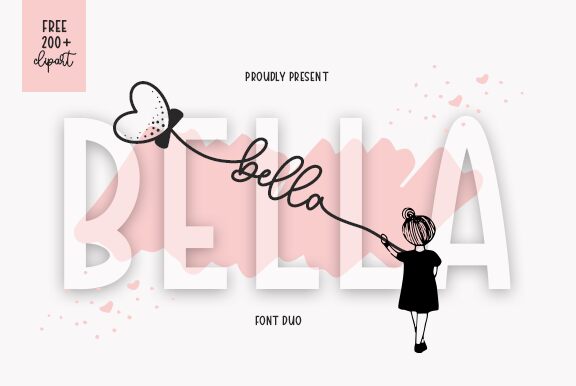
Introducing Bella – a light handwritten font designed by Nopianti. Its naturally flowing lettering makes it perfect for creative projects like hand-lettered logos, scrapbooking designs, greeting cards or wedding stationery. It's also great for adding a personal touch to magazine covers and posters. With its delicate strokes, Bella adds an elegant yet playful feel to any project!